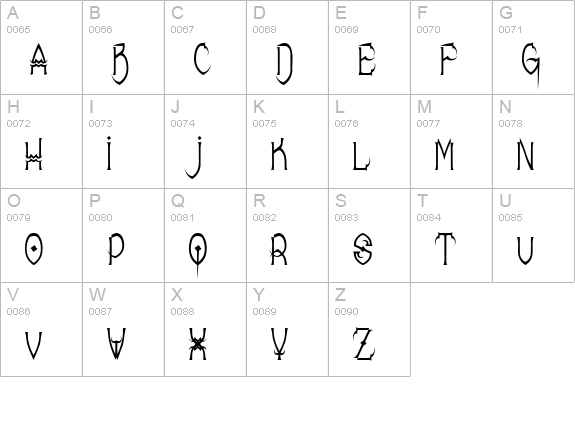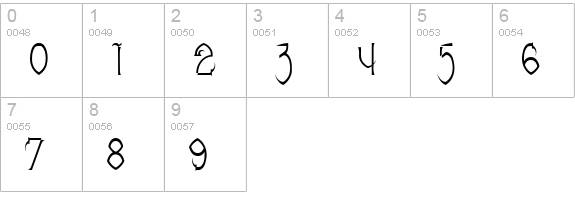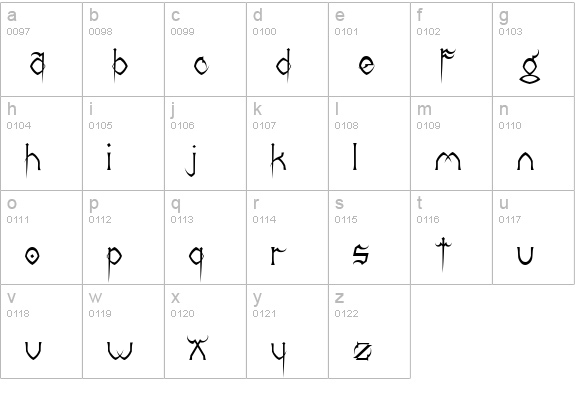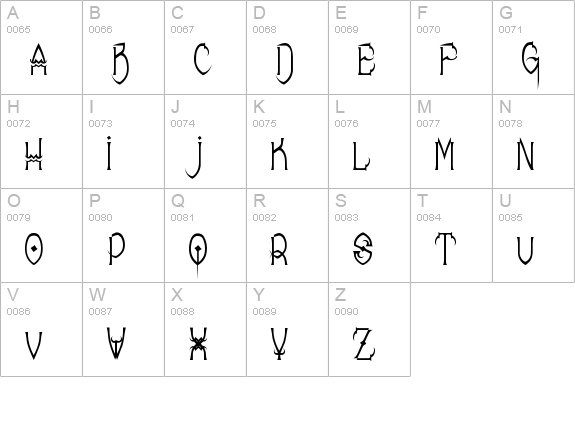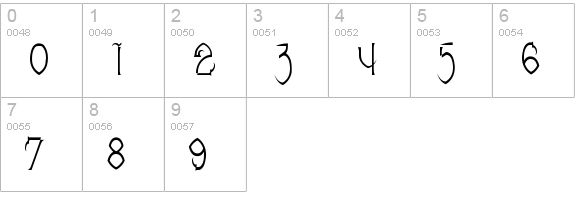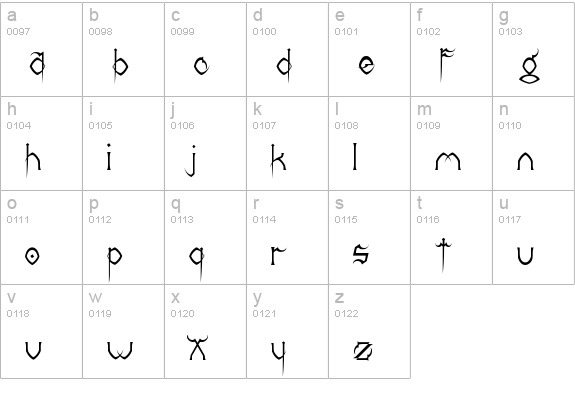
Donree's Claws Font Details
Donree's Claws font is a striking display typeface that exudes power and elegance. Inspired by the sharp edges of a fierce predator's claws, this font is perfect for creating impactful headlines, logos, and branding materials. With its unique and eye-catching design, Donree's Claws font is sure to make your projects stand out. What's even better is that Donree's Claws font is freely available to download at FontsMarket.com. This means you can easily access this stunning font and use it in your creative projects without any restrictions. Don't miss out on the opportunity to add a touch of fierceness and sophistication to your designs with Donree's Claws font. Download it now and let your creativity soar!